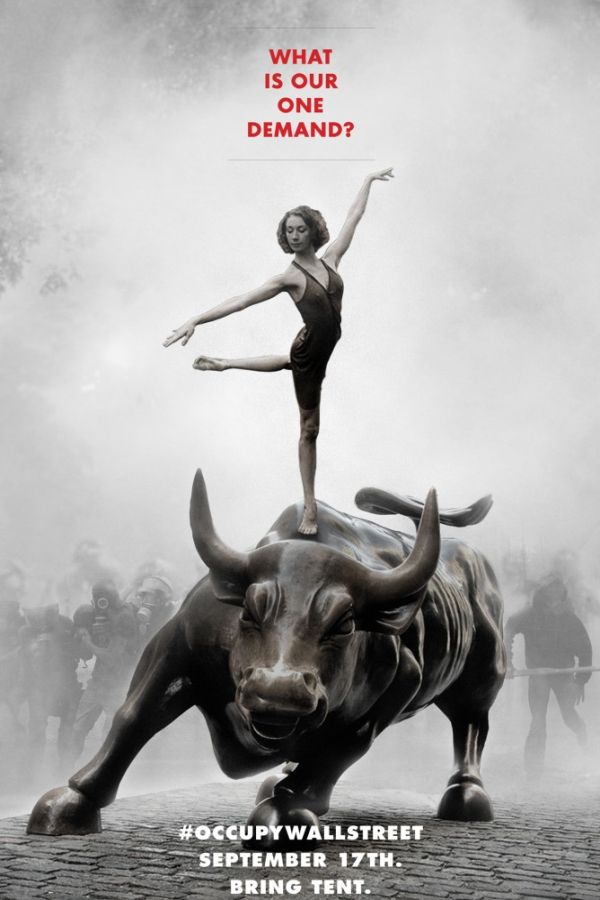
Occupy Wall Street Font
CampaignOccupy Wall Street was a protest movement that began in 2011 in New York City and quickly spread to other cities around the world. It was a grassroots movement that aimed to highlight the growing income inequality and corporate influence in politics. Shown above is the Adbusters poster advertising the Occupy Wall Street protest movement.
On the poster, a ballerina is poised in a Zen-like way atop a bull, with the Twitter hashtag #OccupyWallStreet below in Futura ExtraBold. “What is our one demand?”, which is written above it in Futura Bold.